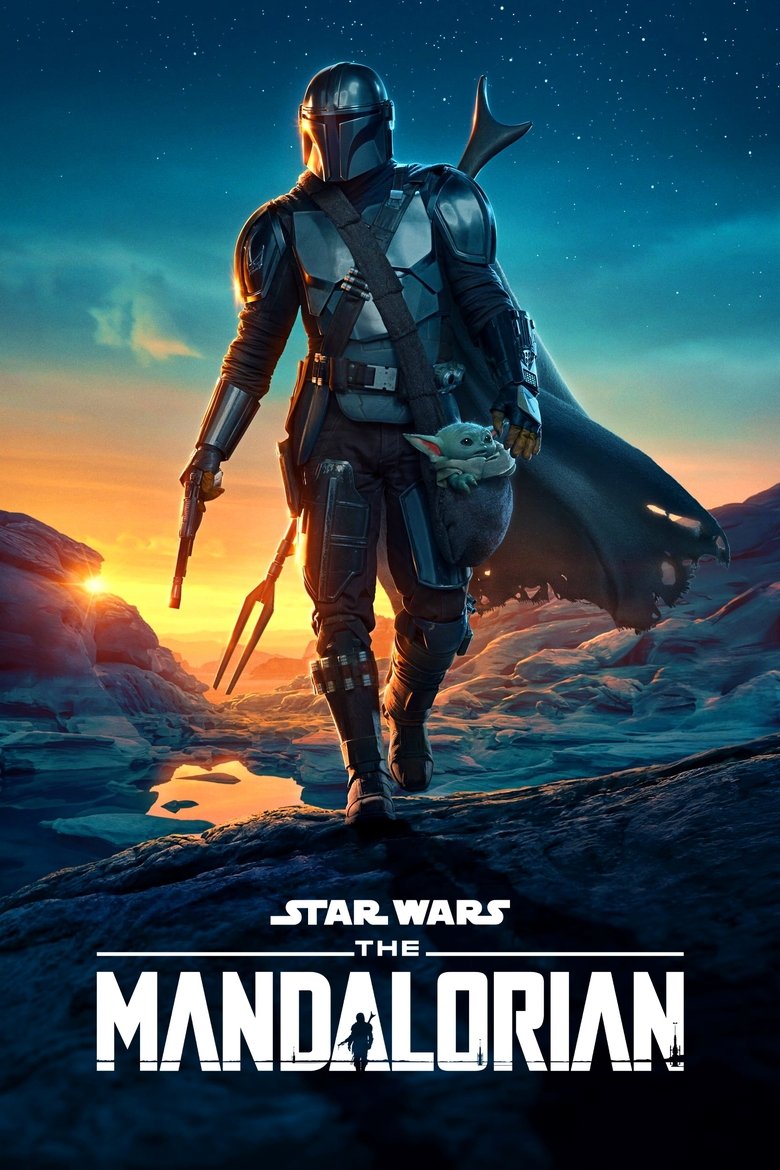
About the The Mandalorian font
The Mandalorian uses a weathered, stencilled sci-fi display. Wallpoet brings that same worn, bounty-hunter edge.
What font is used in the The Mandalorian logo?+
The original The Mandalorian logo uses custom lettering. This generator recreates the look with Wallpoet — a free, open-license font you can style and download.